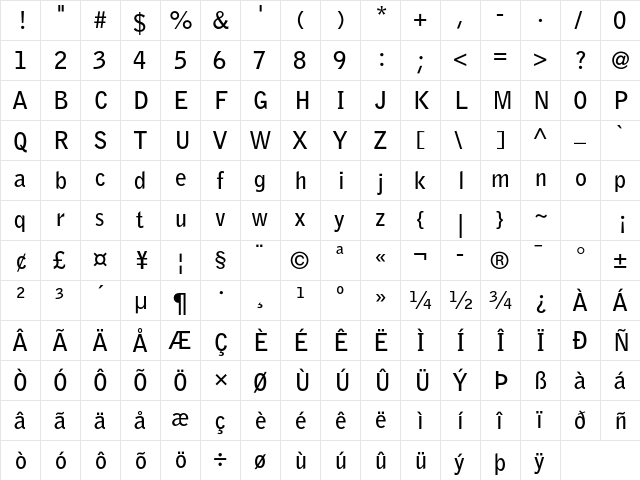
Bell Gothic Std Bold
| Designer | Chauncey H. Griffith |
Design Context for Bell Gothic Std Typeface
Bell Gothic Std has the quiet confidence of well-executed sans-serif typography: versatile, unobtrusive, and dependable at any size. The heavy weight commands attention and anchors typographic hierarchies.
A strong choice for UI design, app interfaces, bold signage, and corporate brand systems.
Font Pairing: Use Bell Gothic Std for headlines alongside a lighter-weight sans or serif for body copy to establish clear visual hierarchy.
Pro Tip: Pair Bell Gothic Std with a display or serif font for headlines — its neutral character makes it an excellent supporting player in complex typographic systems.